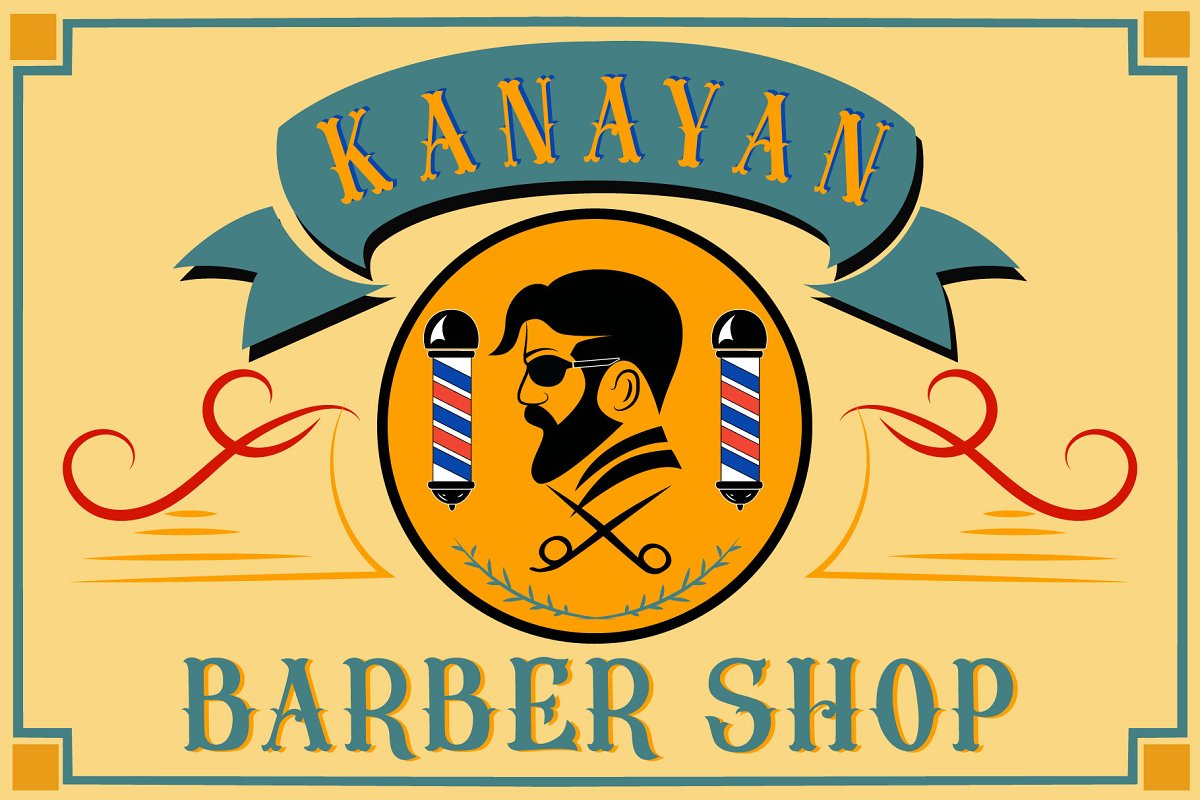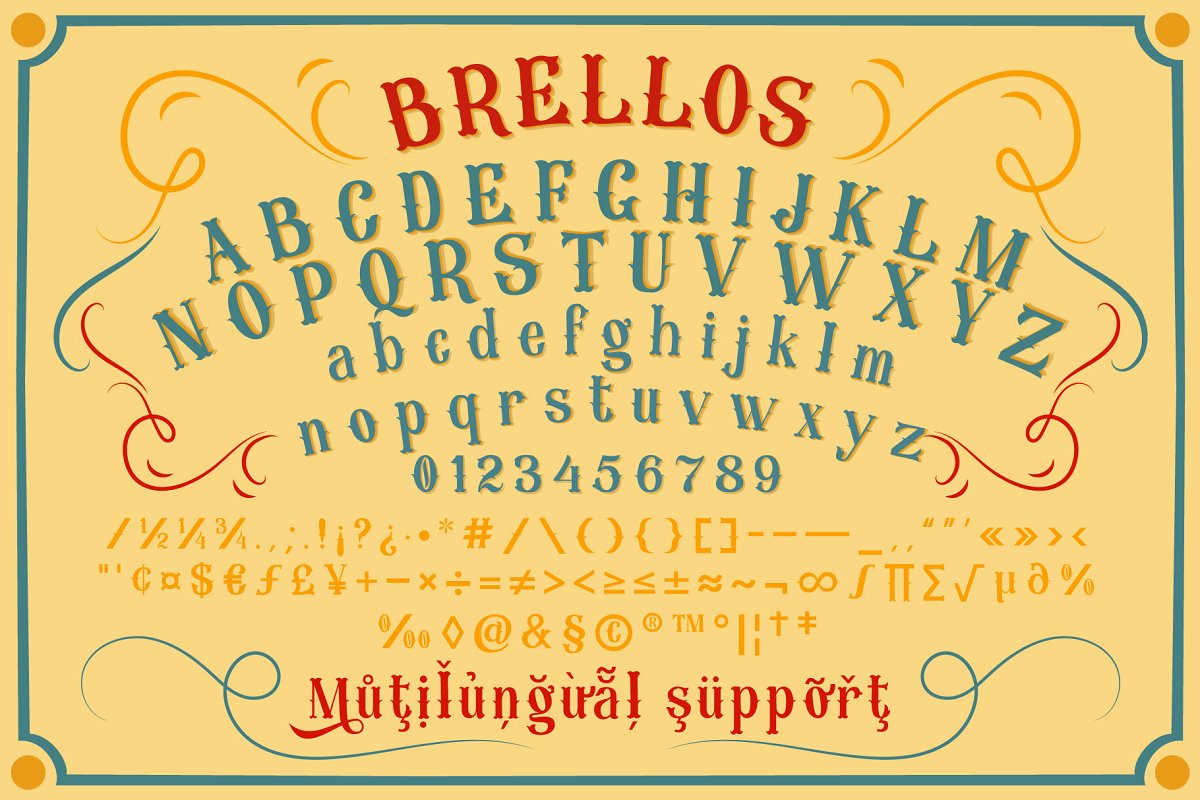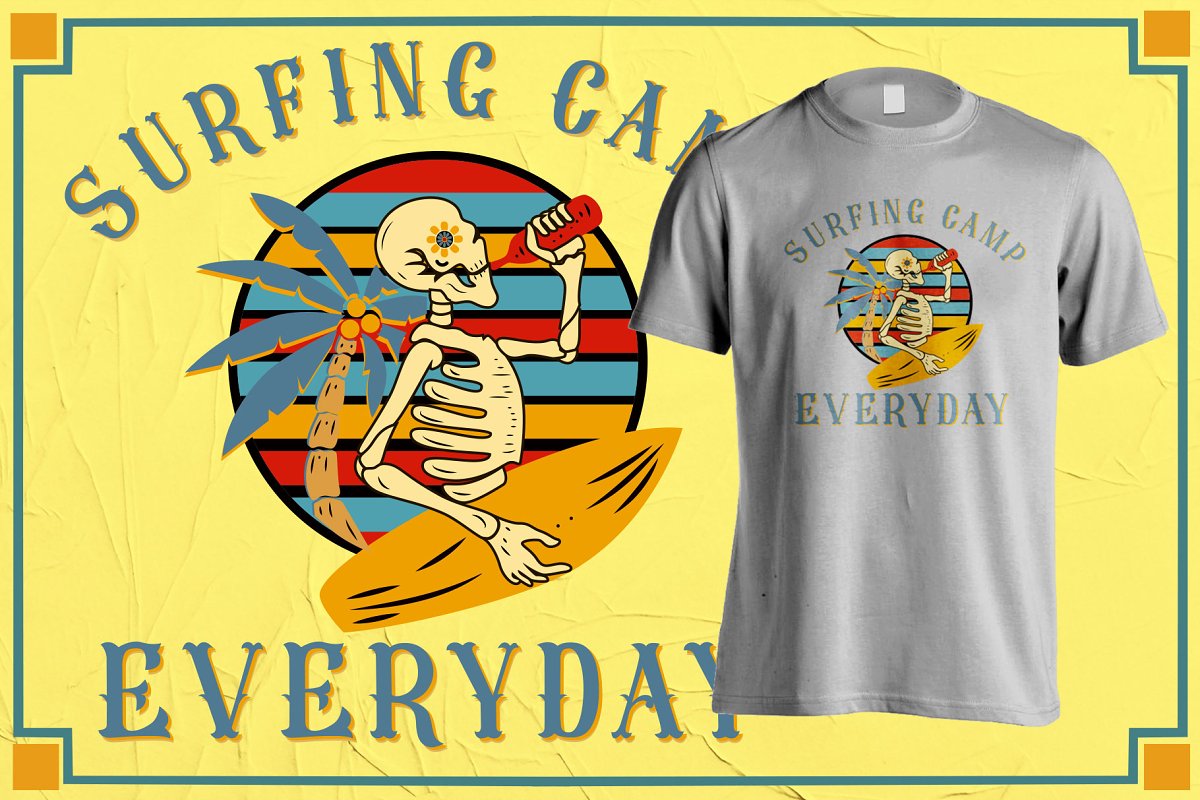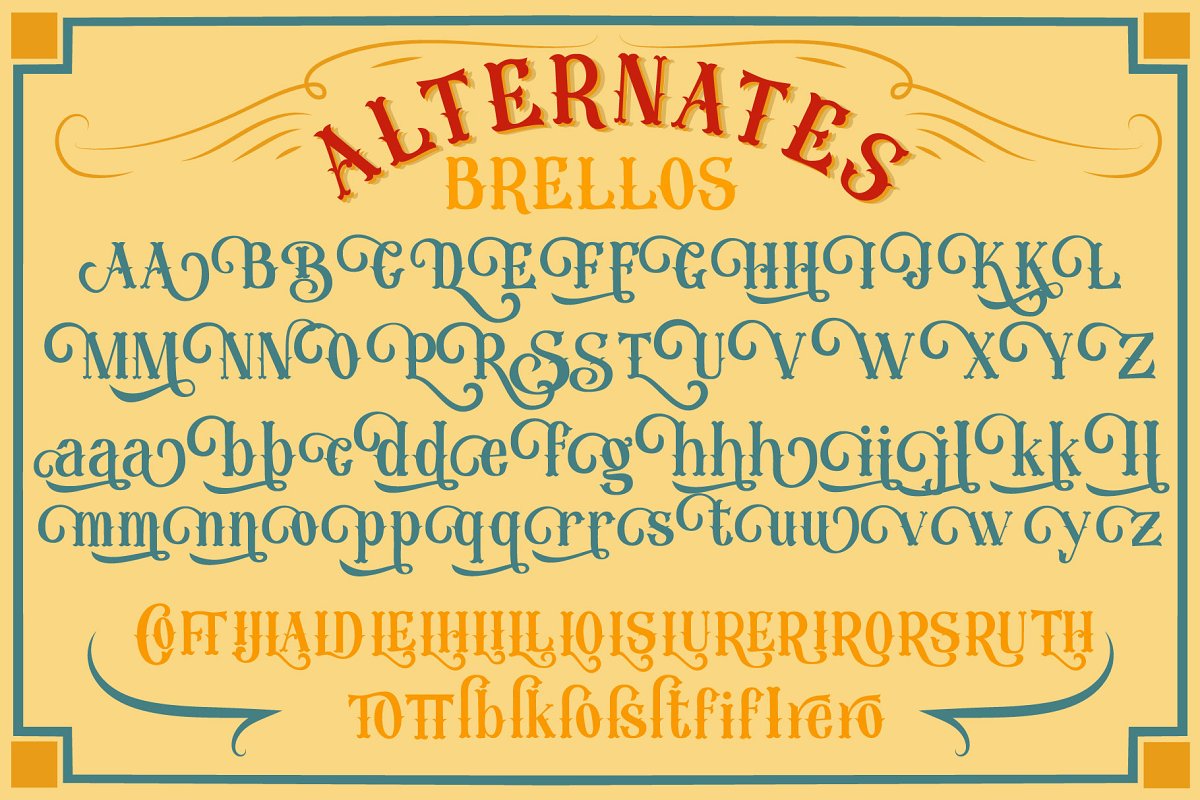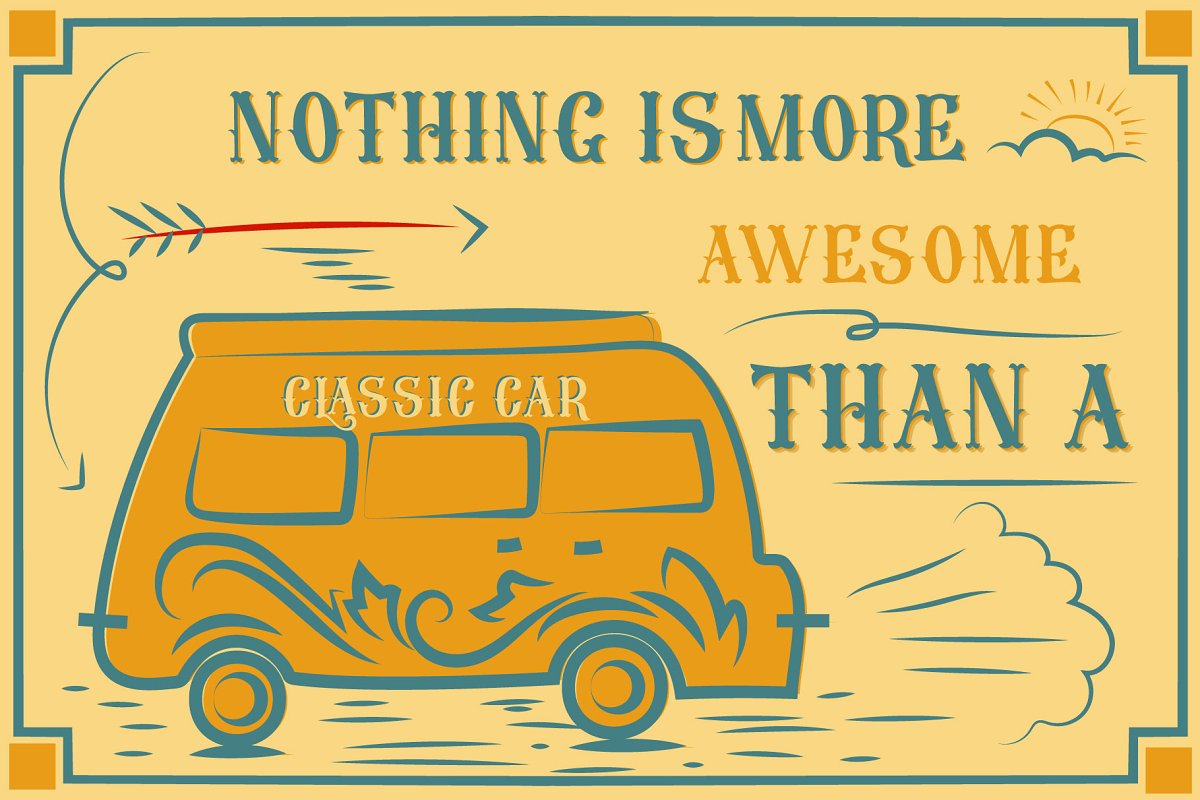
About the Brellos Typeface Font
Introducing BRELLOS Typeface inspired by Mesiko, the funny and bold font style is very thick with the Mexican style design, Suitable for any Mexican, cowboy, or something strong, bold, also fancy and fun, Comes up with handmade extras with the vintage poster style that you can use, combine, or mix and match with each other and also with the typeface
Absolutely perfect for everyone who’d like to add a ‘wild west’ or ‘lucha libre’ designs, suitable for poster, logotype, apparel designs, or any design requirements, Product Content:BRELLOS Typeface OpenType-PSBRELLOS Typeface OpenType-TTBRELLOS Typeface Web-TTBRELLOS Typeface